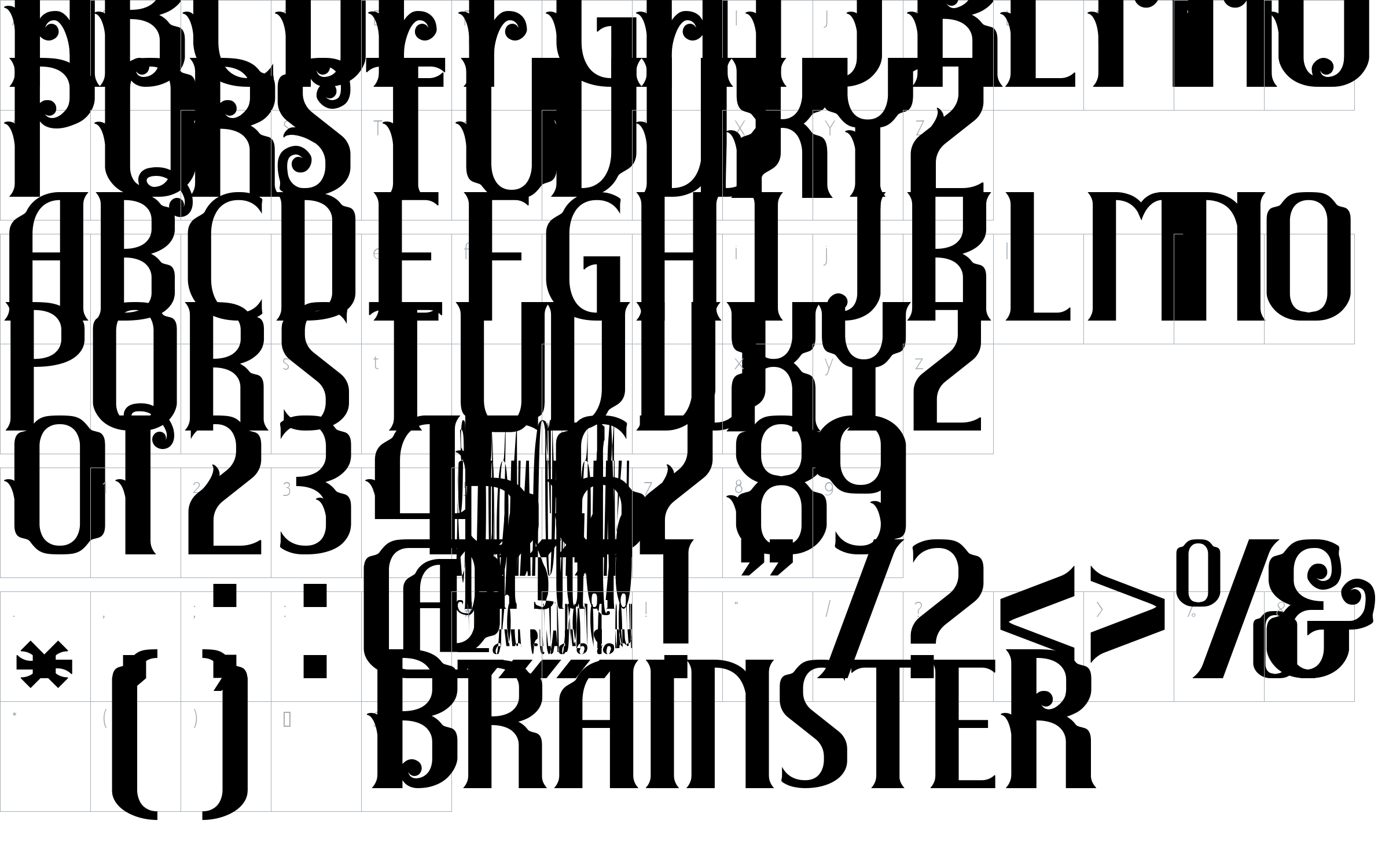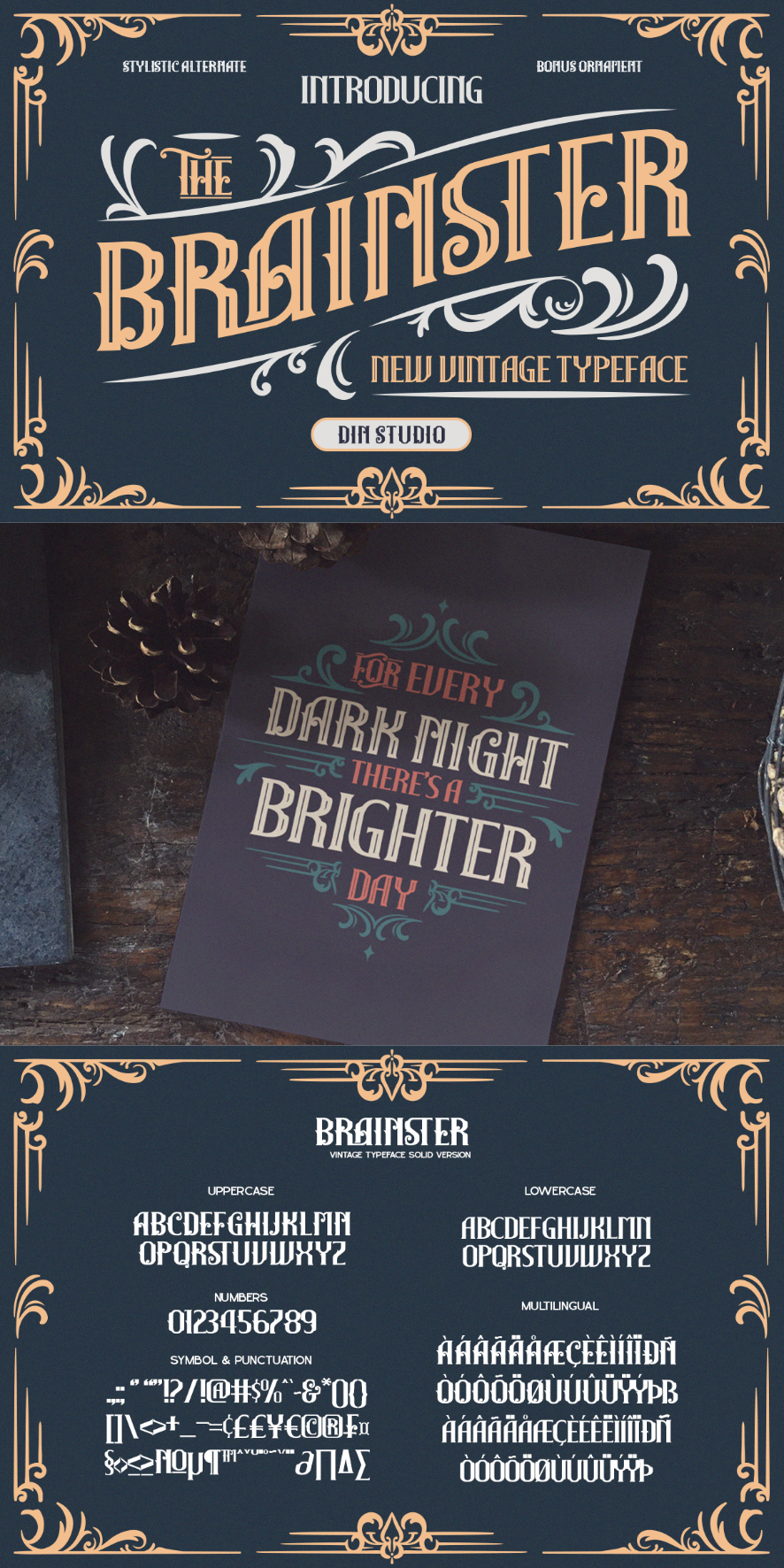
The Brainster Font
About The Brainster
The Brainster is a bold and captivating vintage-style display font that commands attention with its strong, clean lines and retro aesthetic. Designed in uppercases, this font is characterized by consistent proportions and a sturdy structure that exudes timeless charm. Its design blends a nostalgic feel with a contemporary edge. The Brainster is a versatile choice for those seeking a font that bridges the gap between vintage appeal and modern sophistication. In addition, enjoy the features here.
- Bonus Ornaments
The Brainster fits in logos, name cards, posters, branding materials, packaging, print media, editorial layouts, and many more designs. Find out more ways to use this font by taking a look at the font preview.